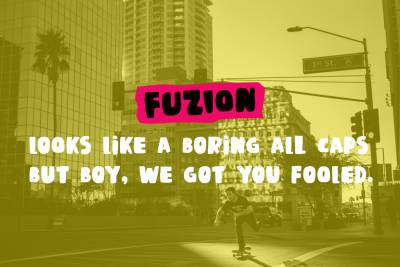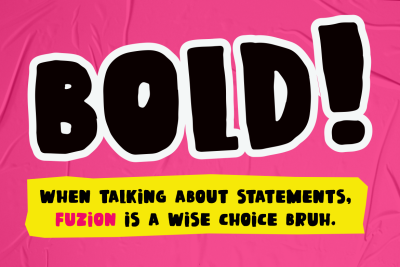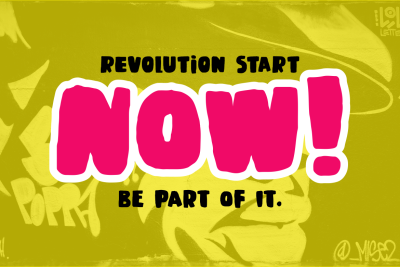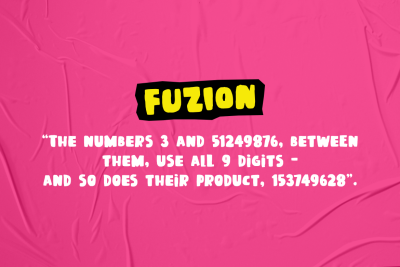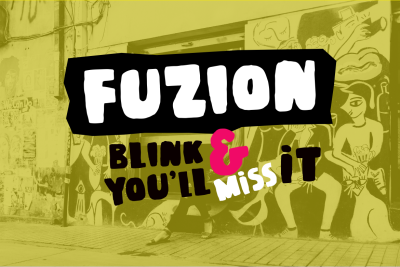
Bubble Font Fuzion is a bold and energetic typeface that brings a playful edge to any design project. Its chunky, irregular letters create a handmade, edgy vibe, making it ideal for designs that need to stand out. Fuzion blends retro and modern elements, so it feels fresh and unique. With its thick lines and organic shapes, this font injects energy and spontaneity into headlines, posters, and social media graphics. Additionally, the raw, expressive touch works well for projects with a fun or rebellious feel.
Beyond its striking appearance, Fuzion is also highly readable, which makes it versatile across different contexts. The large, rounded characters capture attention instantly, making it a great choice for designs that require a visually strong and playful look. Whether for retro posters or bold ad campaigns, Fuzion adapts to various styles and tones. Its distinct look brings character to digital and print projects alike, leaving a memorable, impactful impression on viewers.
Bubble Font Fuzion Ideal for
Bubble Font Fuzion is especially ideal for graphic designers, event organizers, and brands seeking a font with personality. It works particularly well for music events, art festivals, and youth-oriented brands aiming to capture excitement and creativity. Because of its bold, playful nature, Fuzion is perfect for designs targeting younger audiences or those who appreciate an artistic, carefree style. This font gives posters and flyers a unique edge that traditional fonts often lack.
Furthermore, Fuzion shines for digital content creators, especially on social media. It stands out in video thumbnails, banners, and captions, boosting visual appeal and engagement. This expressive style is also well-suited for branding products aimed at teens and young adults, such as streetwear, tech gadgets, and pop culture merchandise. Brands that want to convey boldness, creativity, and a hint of rebellion will find Fuzion an excellent choice.
For marketers, content creators, and designers looking to add personality to their projects, Bubble Font Fuzion provides the perfect solution. Itโs versatile yet consistently impactful. Whether used for packaging, event promos, or social media graphics, Fuzion enhances designs with its bold, fun, and unforgettable aesthetic.